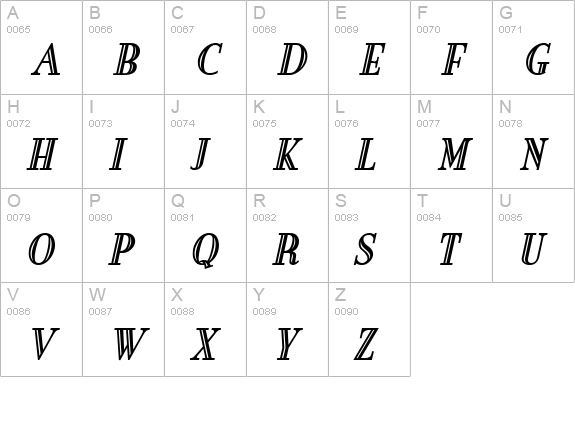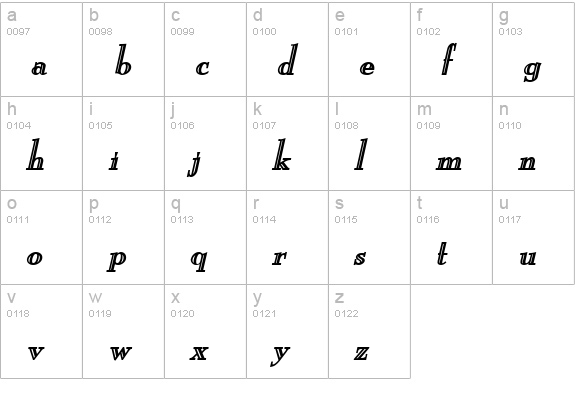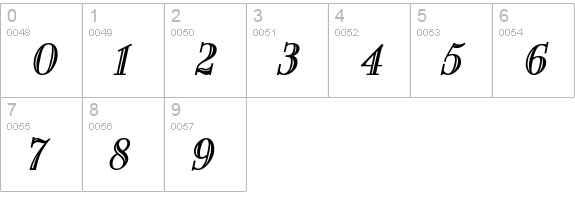
New England Engraved BoldItalic Font Details
New England Engraved BoldItalic font exudes elegance and sophistication with its intricate detailing and refined style. The bold italic design adds a touch of flair and artistic flair to any project, making it perfect for luxury branding, invitations, and editorial design. This exquisite font offers a timeless appeal that captures the essence of classic typography while still feeling fresh and modern. Its clean lines and graceful curves make it a versatile choice for both print and digital applications. Best of all, New England Engraved BoldItalic font is available for free download at FontsMarket.com. Now you can effortlessly elevate your designs with this stunning typeface without breaking the bank. Don't miss out on the opportunity to add a touch of elegance to your projects with this exceptional font.